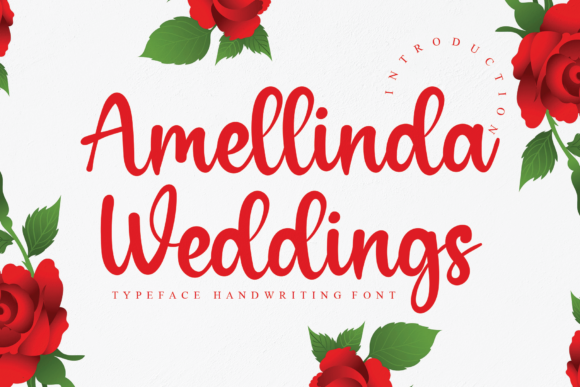
Introduction to Amellinda Weddings Font
Amellinda Weddings is a stylish and incredibly elegant script font.
Key Features of Amellinda Weddings Font
Why Choose Amellinda Weddings Font?